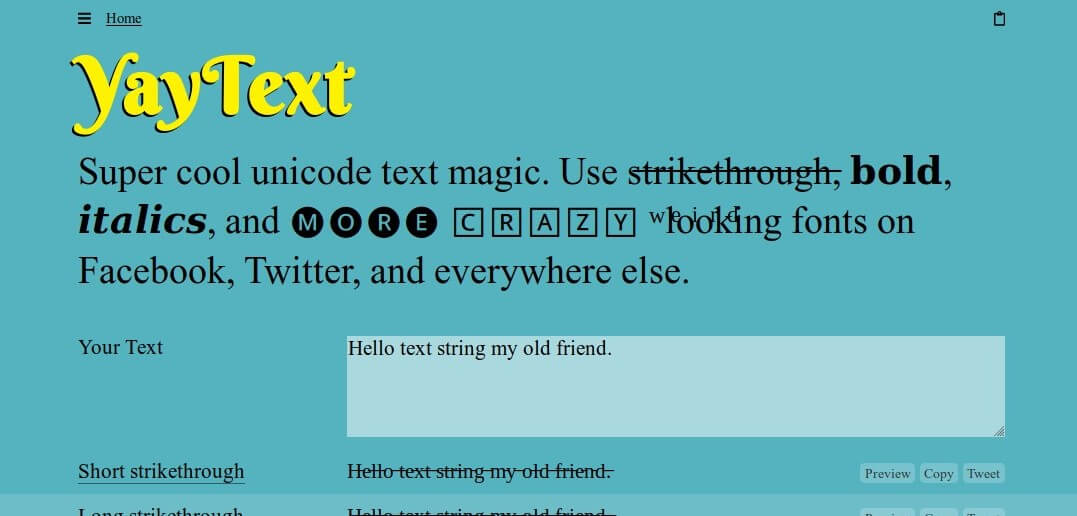
Web kí tự đặc biệt yaytext công cụ tạo tên game hay với phong cách độc đáo mới nhất 2022 cùng hàng triệu kí tự đẹp phong cách. Use this tool to generate small text that you can paste into facebook, twitter, reddit, youtube, etc. Underline y͟o͟u͟r͟ t͟e͟x͟t͟ on facebook, twitter, and everywhere else.
Blackletter, Old English, Or Gothic Text Is A Style Of Script Used For European Languages Beginning In The.
Web tìm hiểu top font chữ đẹp nổi bật nhất dành cho dân designer là ý tưởng trong content hôm nay của yaytext.theo dõi nội dung để biết chi tiết nhé. Care for a glass of ⓑⓤⓑⓑⓛⓨ? Web super cool unicode text magic.
Write 𝐛𝐨𝐥𝐝 And/Or 𝑖𝑡𝑎𝑙𝑖𝑐 Updates On Facebook, Twitter, And Elsewhere.
This tool generates bold and italic text using unicode characters (𝐥𝐢𝐤𝐞 𝐭𝐡𝐢𝐬, 𝘁𝗵𝗶𝘀, 𝑡ℎ𝑖𝑠, 𝘵𝘩𝘪𝘴. Welcome to one of the most amazing yaytext (font generator) website with. Web the vaporwave style is often used to give things a retro, vintage, or 80s font feel.
This Style Is Particularly Popular On Soundcloud.
Yaytext là một trang web miễn phí được dùng để tạo các phông chữ mới lạ trên facebook rất được người dùng. Web kí tự đặc biệt yaytext công cụ tạo tên game hay với phong cách độc đáo mới nhất 2022 cùng hàng triệu kí tự đẹp phong cách. There are two types of.
An inverted black square box around each letter. Sign your tweets in script. Web cách thay đổi font chữ độc đáo trên facebook với yaytext.
Super cool unicode text magic. This tool generates underlined text (like t̲h̲i̲s̲ or t̳h̳i̳s̳) using unicode characters.